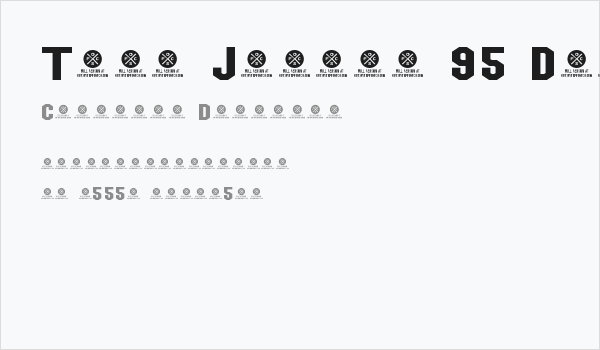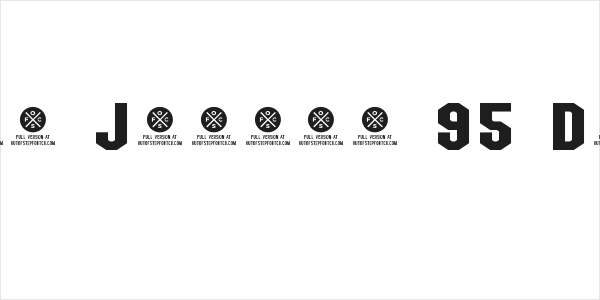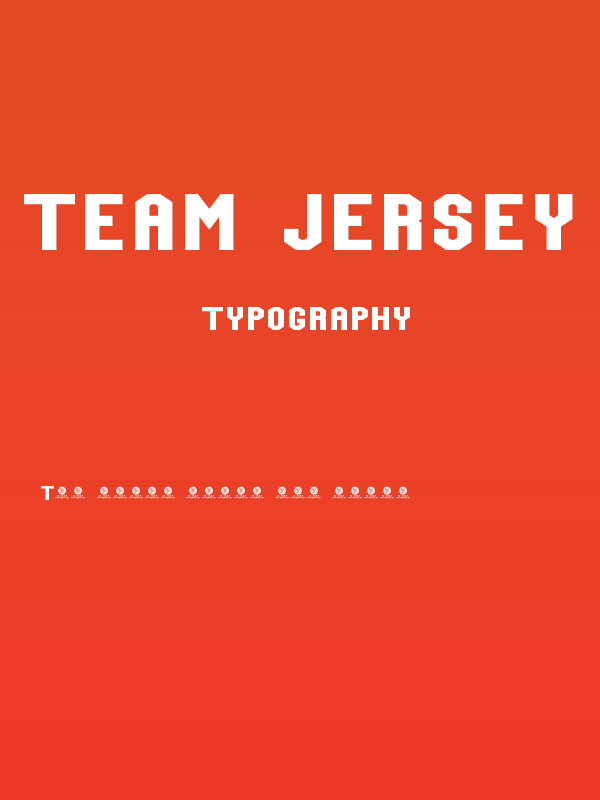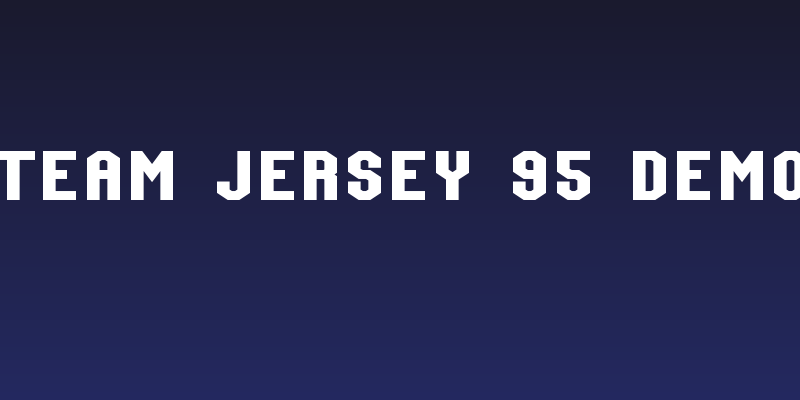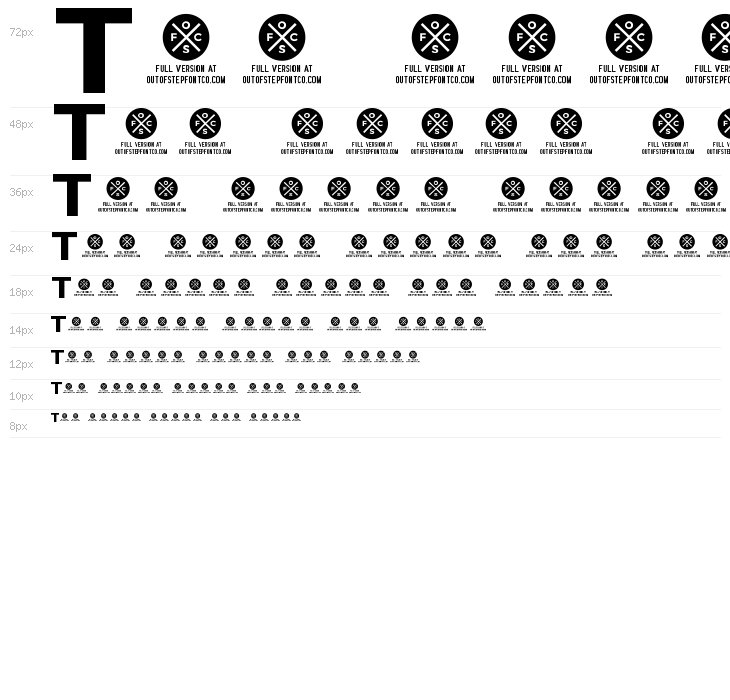
Team Jersey 95 Demo Font
Team Jersey 95 Demo Description
This font features a bold, geometric design with strong, angular lines and a solid presence. The characters are uniformly structured, with a blocky appearance that conveys strength and stability. The uppercase letters are particularly striking, with a uniform height and width that create a cohesive look. The numbers share the same bold characteristics, making them stand out prominently. This font is reminiscent of sports jerseys, with a style that is both modern and classic, suitable for conveying a sense of team spirit and athleticism.
| Use Case | Logos, Headlines, Sports Jerseys |
| Proposed Projects | Perfect for sports team jerseys, athletic event branding, posters, and merchandise. |